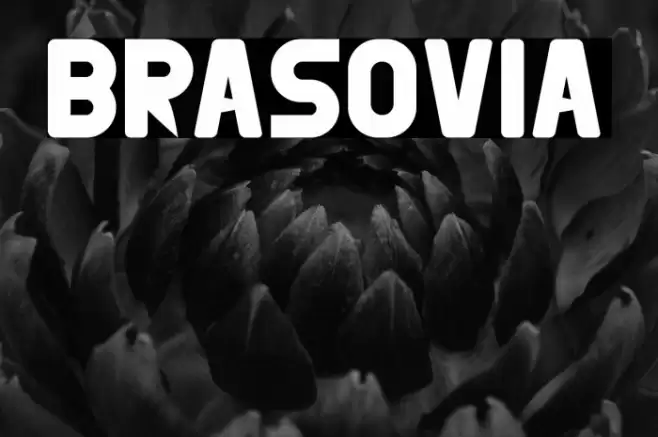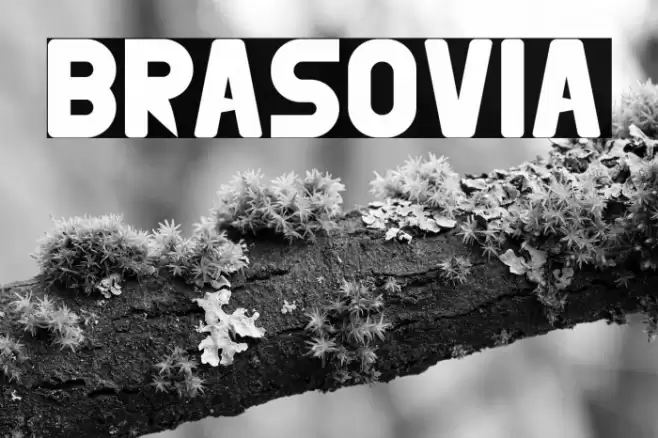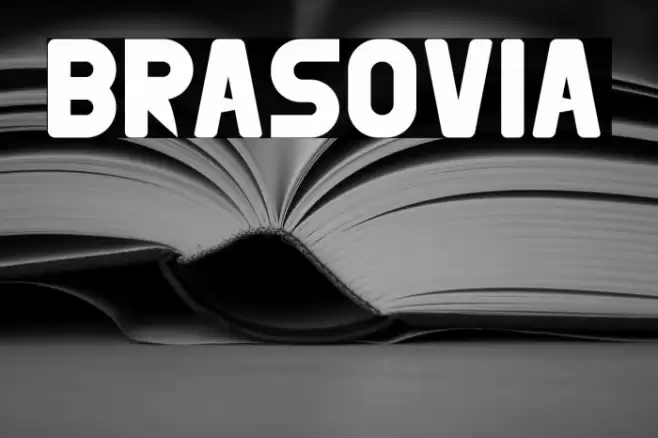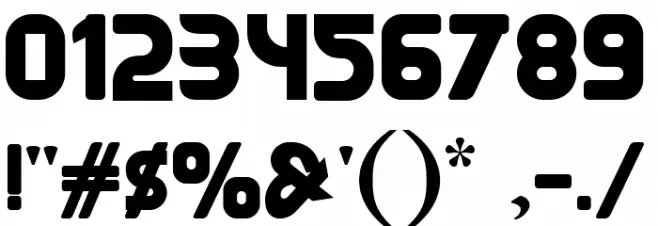
BRASOVIA Font
BRASOVIA Description
This font features bold, geometric letterforms with a modern and assertive style. The characters are constructed with thick strokes and have a uniform width, giving them a strong presence. The angular cuts and sharp edges add a contemporary flair, making it suitable for impactful designs. The numerals and special characters maintain the same boldness, ensuring consistency across all elements. The overall appearance is clean and structured, ideal for projects that require a strong visual statement.
A bold, geometric font with a modern and assertive style from Regular fonts.
- Proposed Projects: Ideal for branding, posters, headlines, and any design requiring a strong, modern aesthetic.